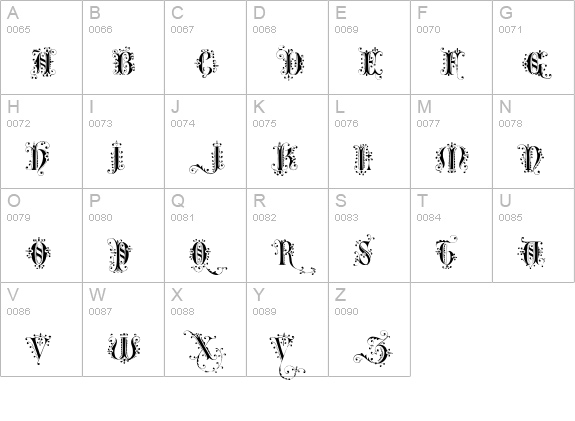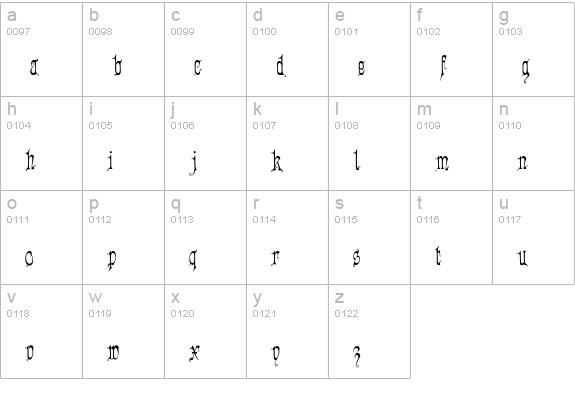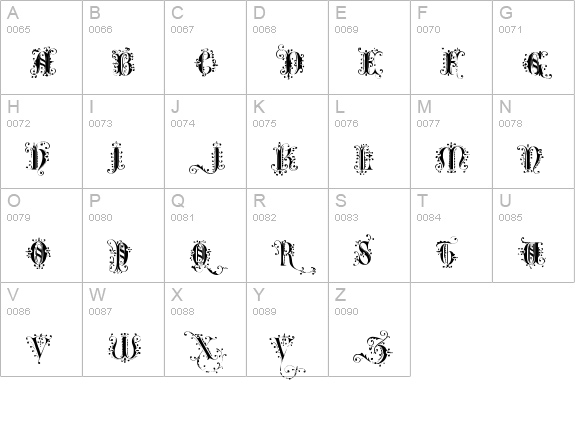
Romantically Yours Font Details
Romantically Yours font exudes elegance and charm, perfect for adding a touch of romance to your projects. With its delicate curves and flowing lines, this font captures the essence of love and passion. Whether you're creating wedding invitations, love letters, or romantic quotes, Romantically Yours is the ideal choice to convey heartfelt emotions. Best of all, Romantically Yours font is available for free download at FontsMarket.com. Feel free to add a romantic flair to your designs without any cost. Download this enchanting font today and let your creativity soar with its timeless beauty and grace.